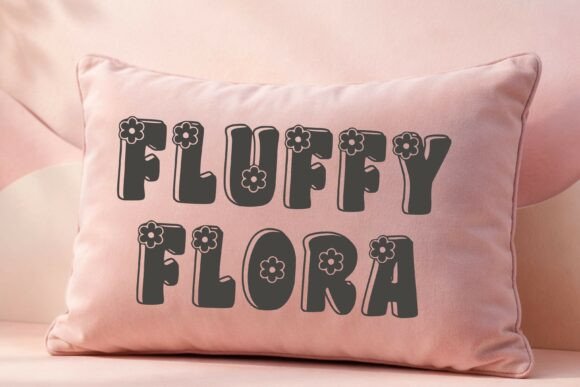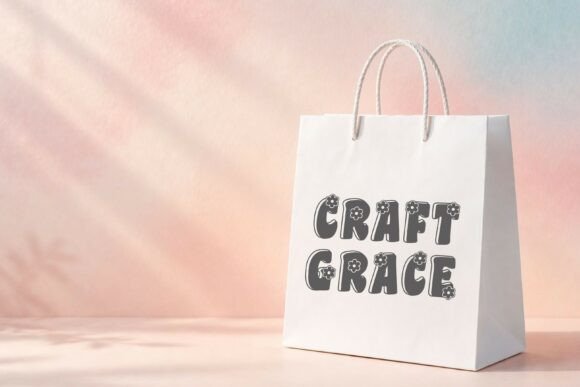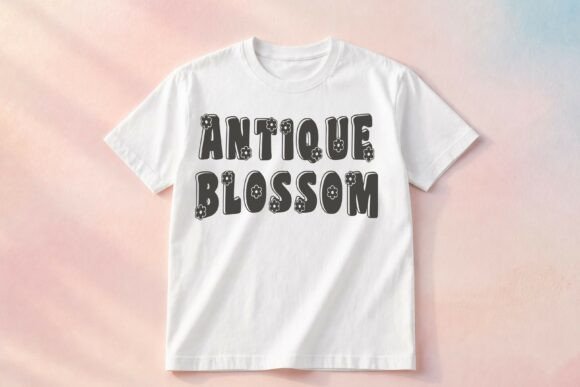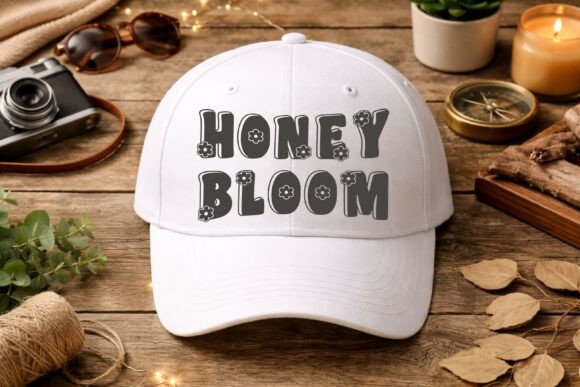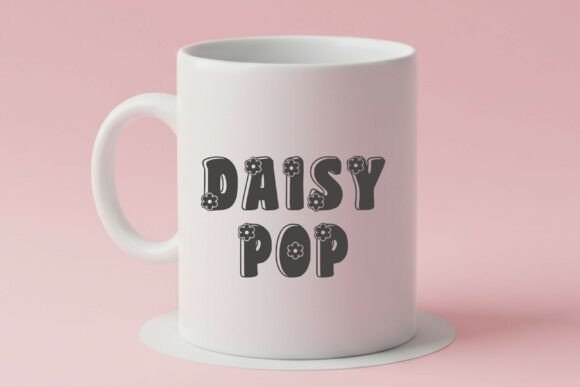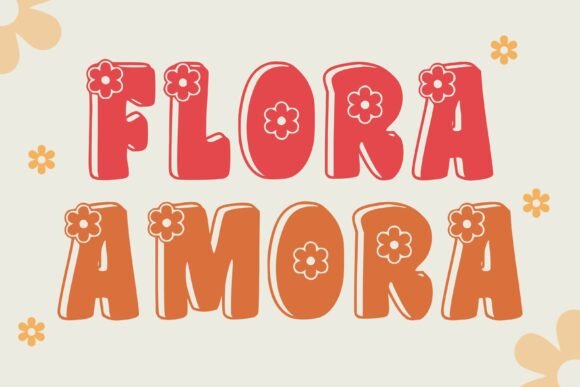
Introducing Flora Amora Font: The Ultimate Retro-Inspired Display Font
Are you looking for a font that can add a touch of whimsy and playfulness to your designs? Look no further than Flora Amora Font, a cheerful and charming display font that is sure to delight. Inspired by retro aesthetics and floral elements, Flora Amora is the perfect choice for designers and crafters who want to add a soft, happy touch to their projects.
The Inspiration Behind Flora Amora
Flora Amora Font is a lovingly crafted font that draws inspiration from the classic designs of the past. With its bold, yet adorable personality, this font is sure to evoke feelings of nostalgia and joy. Each letter is carefully decorated with cute flower shapes, giving it a fun, friendly, and playful vibe that is perfect for a wide range of design applications.
Flora Amora Font is an incredibly versatile font that can be used for a variety of design projects, including:
• Children’s designs: From book covers to activity sheets, Flora Amora Font is the perfect choice for any children’s design project.
• Branding: Add a touch of whimsy and personality to your brand with Flora Amora Font.
• Packaging: Make your product stand out on store shelves with Flora Amora Font.
• Posters: Create eye-catching posters that are sure to grab attention with Flora Amora Font.
• Creative projects: From DIY crafts to art projects, Flora Amora Font is the perfect choice for any creative project that needs a soft, happy touch.
Key Features of Flora Amora Font
So, what makes Flora Amora Font so special? Here are just a few of its key features:
• Retro-inspired design: Flora Amora Font is inspired by the classic designs of the past, making it perfect for designers who love vintage aesthetics.
• Floral elements: Each letter is decorated with cute flower shapes, giving it a fun, friendly, and playful vibe.
• Bold yet adorable personality: Flora Amora Font has a bold personality that is sure to make your designs stand out.
• Soft and happy touch: This font adds a soft, happy touch to any design project, making it perfect for children’s designs and other projects that require a playful vibe.
Why Choose Flora Amora Font?
With so many fonts to choose from, why should you choose Flora Amora Font? Here are just a few reasons:
• Unique design: Flora Amora Font has a unique design that is sure to make your designs stand out.
• Highly versatile: This font can be used for a wide range of design projects, from children’s designs to branding and packaging.
Flora Amora Font is a charming and playful display font that is sure to delight designers and crafters. With its retro-inspired design, floral elements, and bold yet adorable personality, this font is perfect for a wide range of design projects. Whether you’re working on children’s designs, branding, packaging, or creative projects, Flora Amora Font is the perfect choice. So why wait? Download Flora Amora Font today and see the difference it can make in your designs.